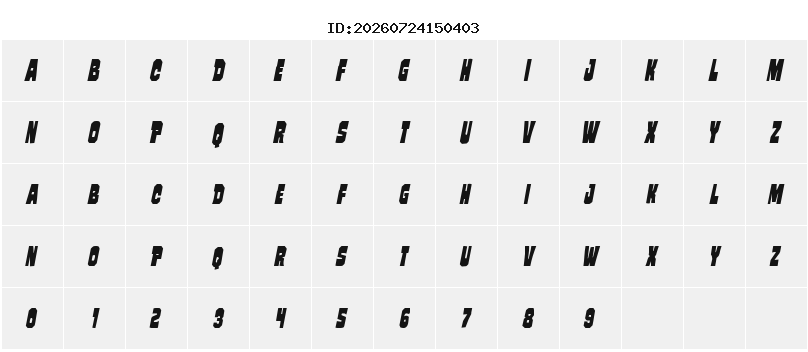
Mindless Brute Condensed Italic Preview
• Font Name: Mindless Brute Condensed Italic
• Font Style: Condensed Italic
• Full Font Name: Mindless Brute Condensed Italic
About Mindless Brute Condensed Italic.ttf
Mindless Brute Condensed Italic.ttf is a modern, elegant sans-serif font designed for ultimate readability and visual harmony. Perfect for branding, headlines, web design, and print materials.